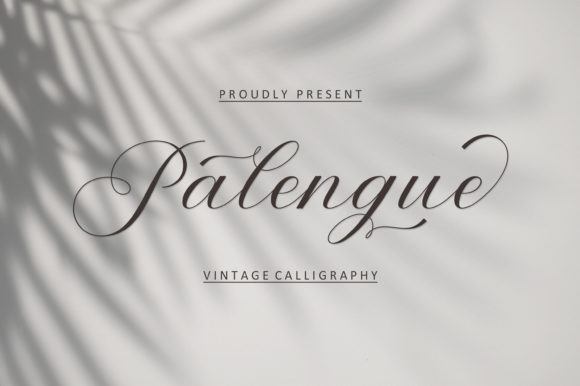
Palengue: A Font That Elevates Design with Elegance
Palengue is an incredibly elegant and delicate handwritten font that brings a unique charm to any design project. Its beautifully balanced characters, varying baseline, smooth lines, and stunning alternates make it a versatile choice for a wide range of creative applications. Whether you're designing a logo, crafting a marketing brochure, or writing a personal letter, Palengue adds a touch of sophistication that can elevate your work.
The Art of Handwritten Typography
In the digital age, where most text appears on screens, the use of handwritten fonts like Palengue offers a refreshing contrast. It mimics the natural flow of handwriting, which can evoke a sense of authenticity and personal connection. This makes it particularly useful for content that aims to build trust and intimacy with the audience.
Palengue's varying baseline ensures that each line of text feels organic and dynamic rather than rigid and uniform. This subtle variation helps maintain visual interest even in longer passages of text, making it ideal for projects that require readability without sacrificing aesthetic appeal.
Who Can Benefit from Using Palengue?
Palengue is especially well-suited for professionals and creators who value both aesthetics and functionality. Marketers may find it useful for creating visually engaging social media posts or email campaigns that stand out in a crowded digital landscape. Bloggers and content creators can use it to add personality to their headlines or call-to-action buttons, helping to capture attention more effectively.
Educators and publishers might appreciate how Palengue can be used in educational materials to create a more inviting and approachable reading experience. Freelancers and small business owners can incorporate it into branding elements such as logos, business cards, or website headers to convey professionalism with a personal touch.
Use Cases for Palengue in Everyday Projects
- Branding and Logos: The elegance of Palengue makes it a great fit for logos that aim to communicate creativity and refinement. Its delicate strokes and balanced characters help create a memorable brand identity.
- Marketing Materials: Brochures, flyers, and promotional materials benefit from the visual warmth of Palengue. It can help draw the reader in and create a positive first impression.
- Personalized Communication: Invitations, thank-you notes, and greeting cards can feel more heartfelt when written in Palengue. Its handwritten appearance adds a personal touch that digital fonts often lack.
- Web Design: When used sparingly, Palengue can enhance the visual hierarchy of a website. It works well for headings, captions, and other typographic elements that need to stand out without overwhelming the reader.
While Palengue is highly versatile, it's important to consider its suitability for different contexts. For instance, it may not be the best choice for large blocks of body text due to its ornate style, which could reduce readability. Instead, it shines when used as a decorative or accent element within a larger design.
Why Palengue Stands Out Among Handwritten Fonts
What sets Palengue apart from other handwritten fonts is its balance between elegance and practicality. Unlike some fonts that lean too heavily into stylization, Palengue maintains a level of legibility that allows it to be used across a variety of design scenarios. Its smooth lines and well-proportioned characters ensure that even intricate details remain clear and easy to read.
The font also includes a range of alternates and glyphs that allow for greater customization. These variations can be used to add visual interest or to match specific design themes. For example, a designer working on a vintage-themed project might choose to use certain alternate characters to enhance the overall aesthetic.
For those who are new to using handwritten fonts, it's worth experimenting with different weights and sizes to see how they interact with other design elements. Palengueβs adaptability means it can be paired with a wide range of typefaces and colors, making it a valuable addition to any designer's toolkit.
Considerations for Effective Use
While Palengue offers many benefits, it's essential to use it thoughtfully. Overusing it or applying it to inappropriate contexts can detract from its intended effect. For instance, while it may look beautiful in a wedding invitation, it might not be suitable for a technical manual or a legal document where clarity and formality are paramount.
Designers should also consider the medium on which the font will be displayed. Since Palengue is a handwritten font, it may render differently on various devices and screen resolutions. Testing it across different platforms can help ensure that it looks consistent and professional in all contexts.
Another consideration is accessibility. While Palengue is visually appealing, it may not be the best choice for users with visual impairments or those who rely on screen readers. In such cases, it's advisable to use it only for decorative purposes and ensure that the primary text remains in a more readable font.
Whether you're a marketer looking to craft compelling messages, a blogger aiming to connect with your audience, or a designer seeking to add a touch of sophistication to your projects, Palengue provides a versatile solution that can enhance your work in meaningful ways. By understanding its strengths and limitations, you can use it effectively to achieve your creative goals and deliver content that resonates with your audience.